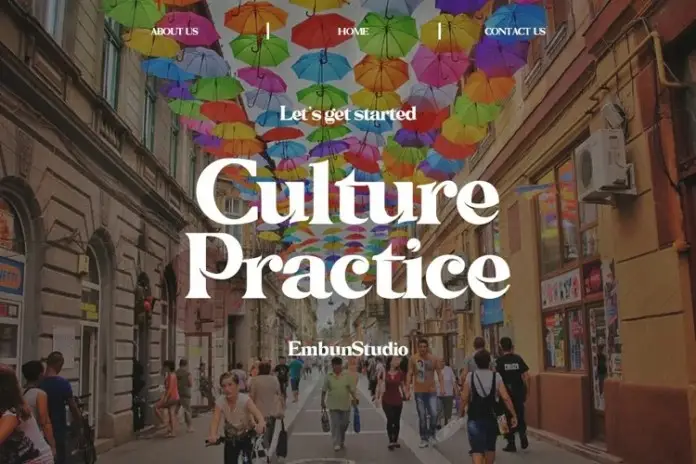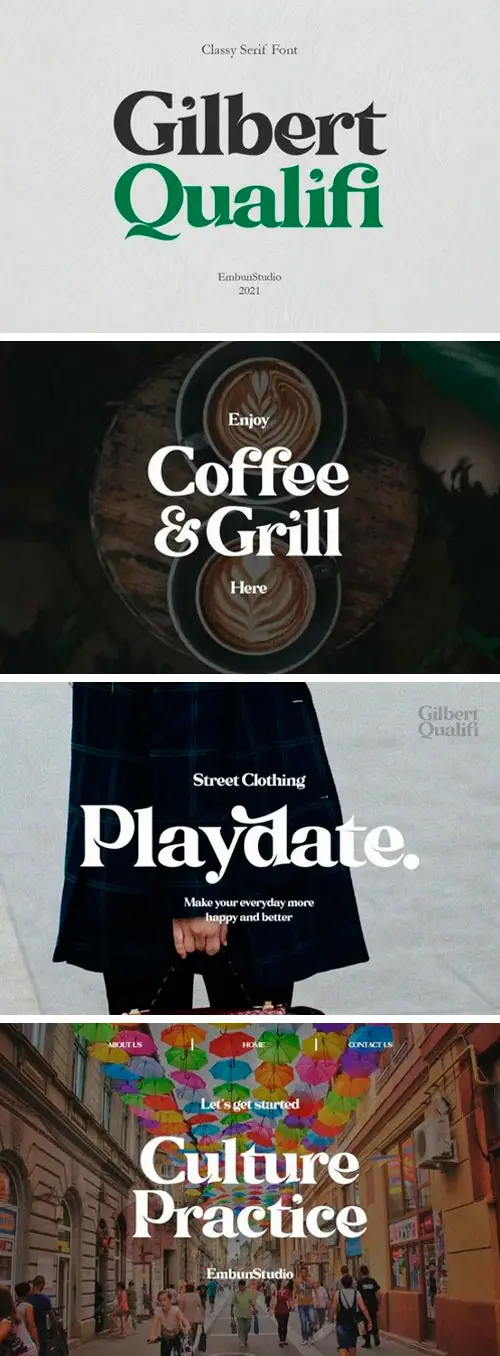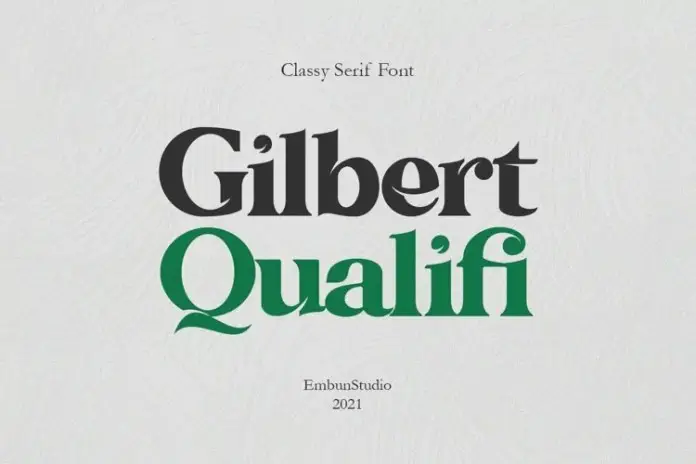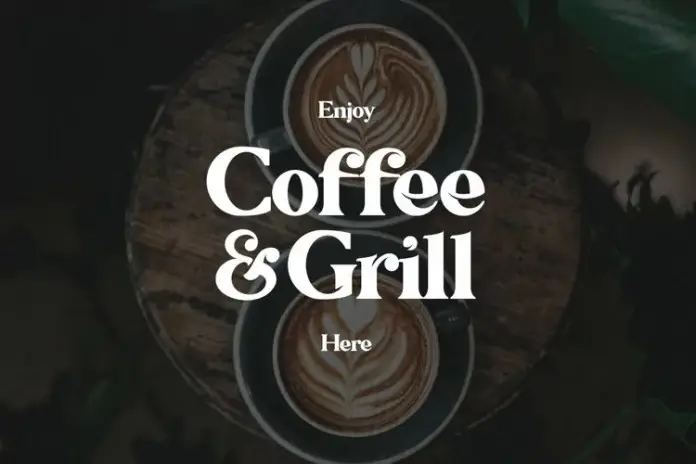
Gilbert Qualifi Serif Font
The Gilbert Qualifi Serif Font is a beautifully crafted typeface that combines elegance with readability. This font is ideal for various applications, from branding and logos to web and print design. With its classic serif features, it adds a touch of sophistication to any project.
• Multiple weights for versatile use
• Stylish serif design that enhances visual appeal
• Supports a wide range of languages
• Well-suited for both headlines and body text
• Perfect for creating elegant logos and branding materials
• Great for web design, ensuring readability across devices
• Ideal for print projects like invitations, posters, and brochures